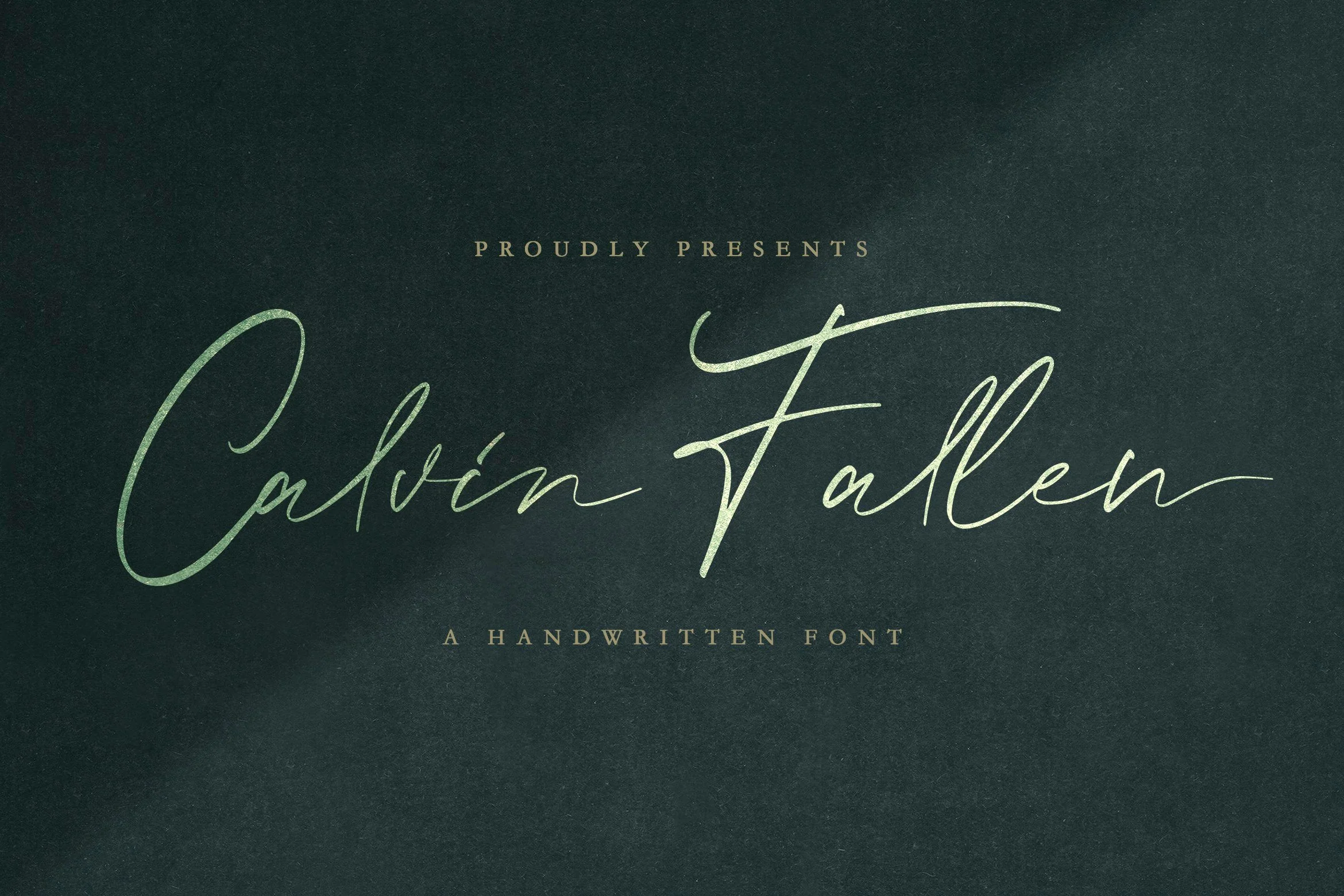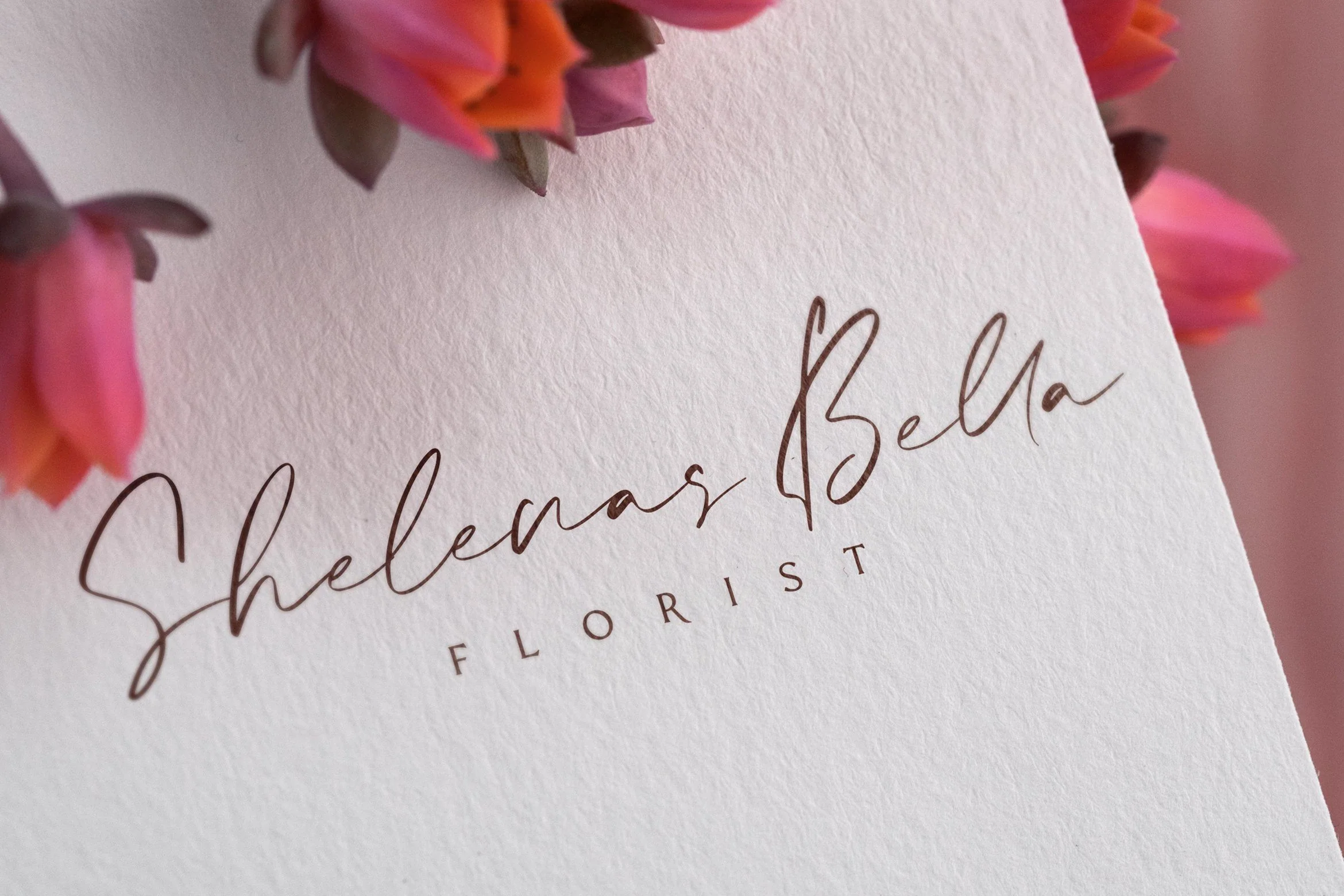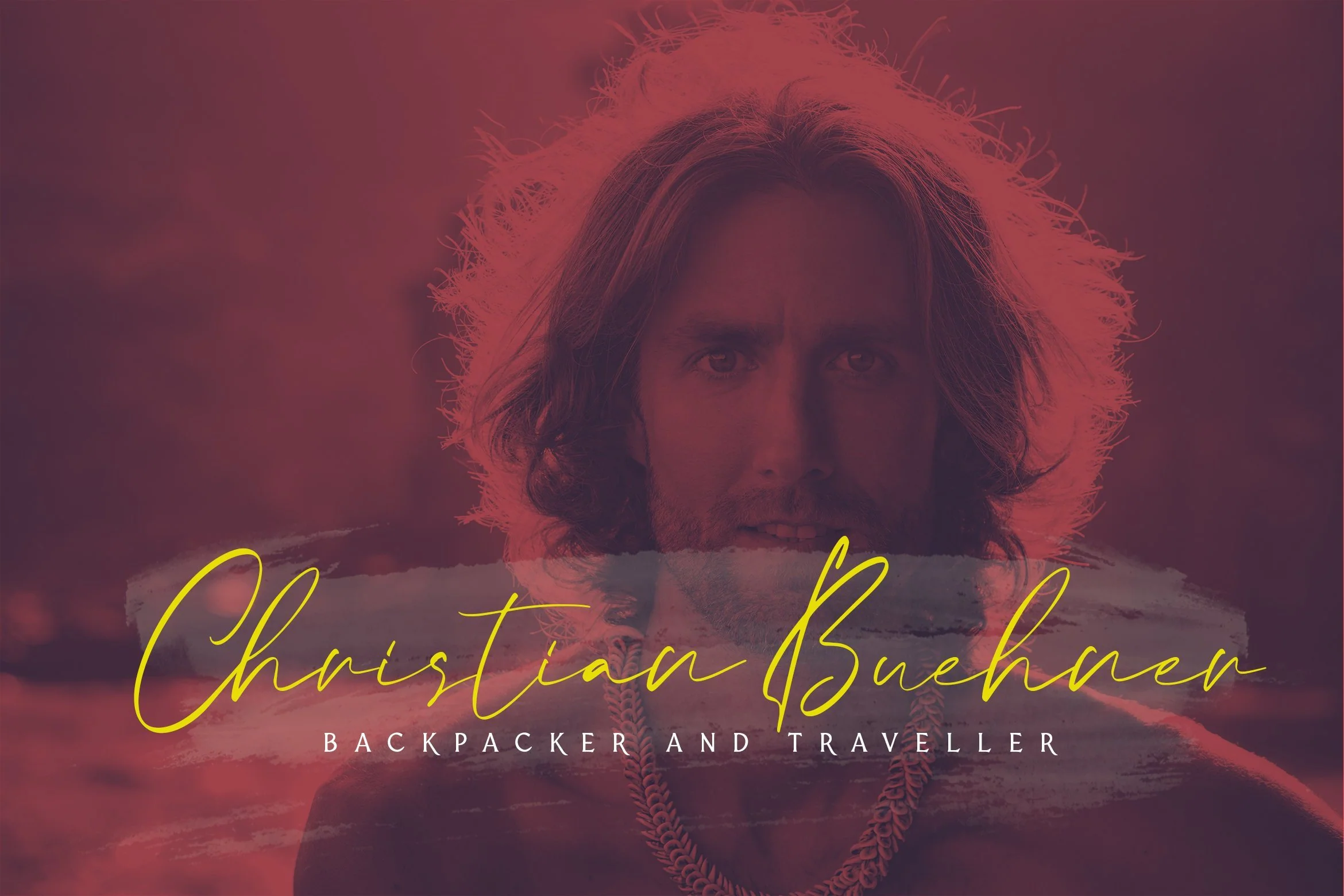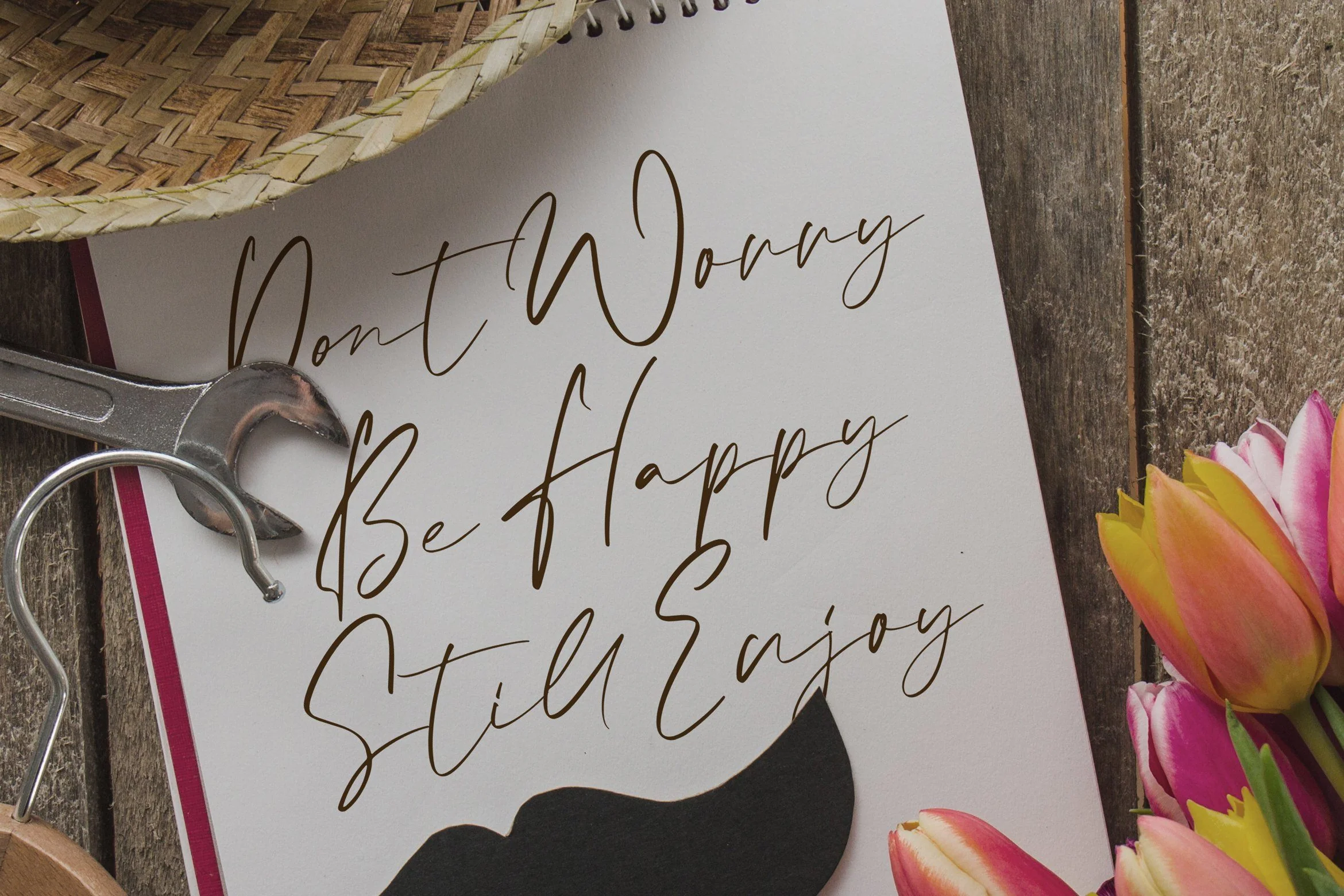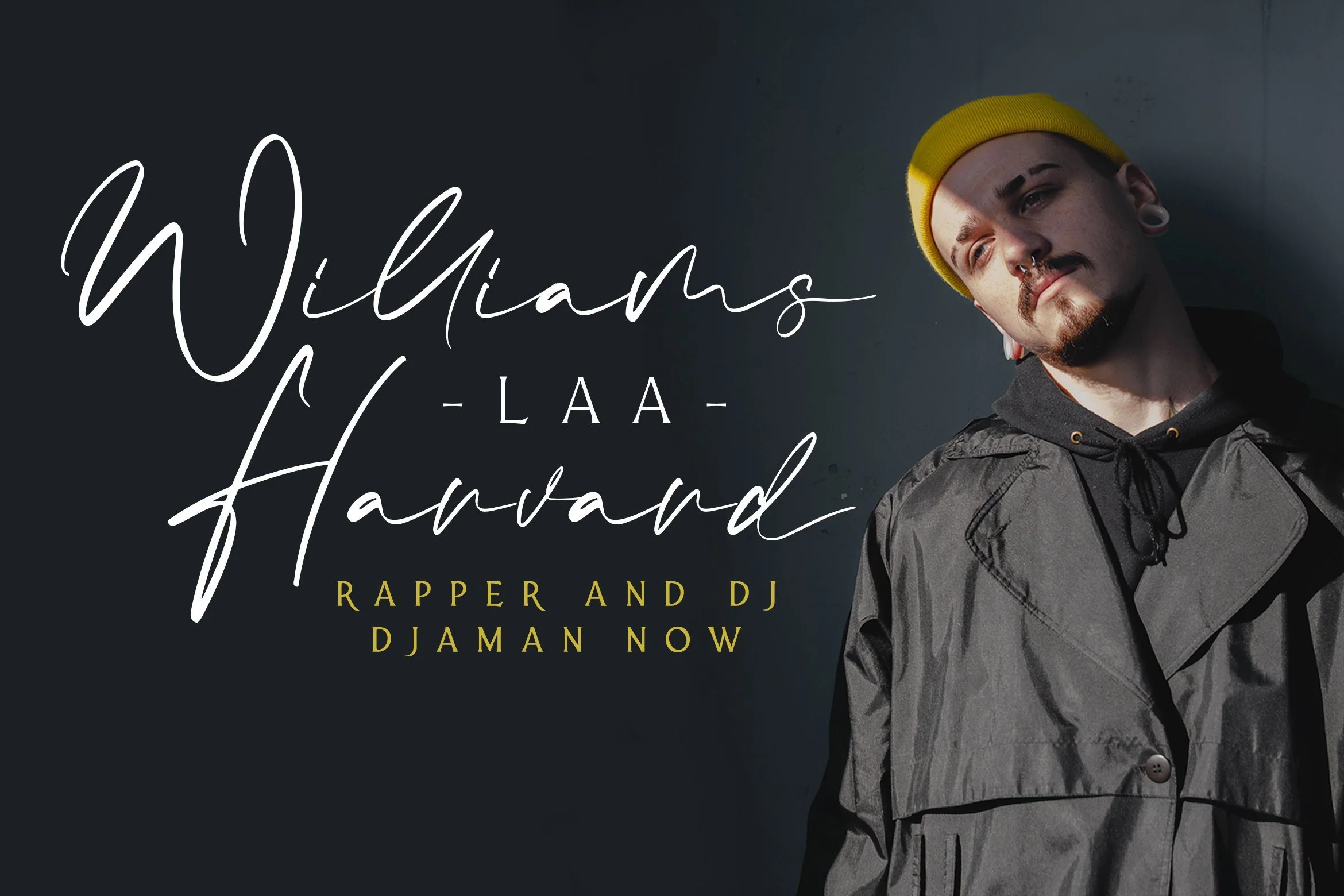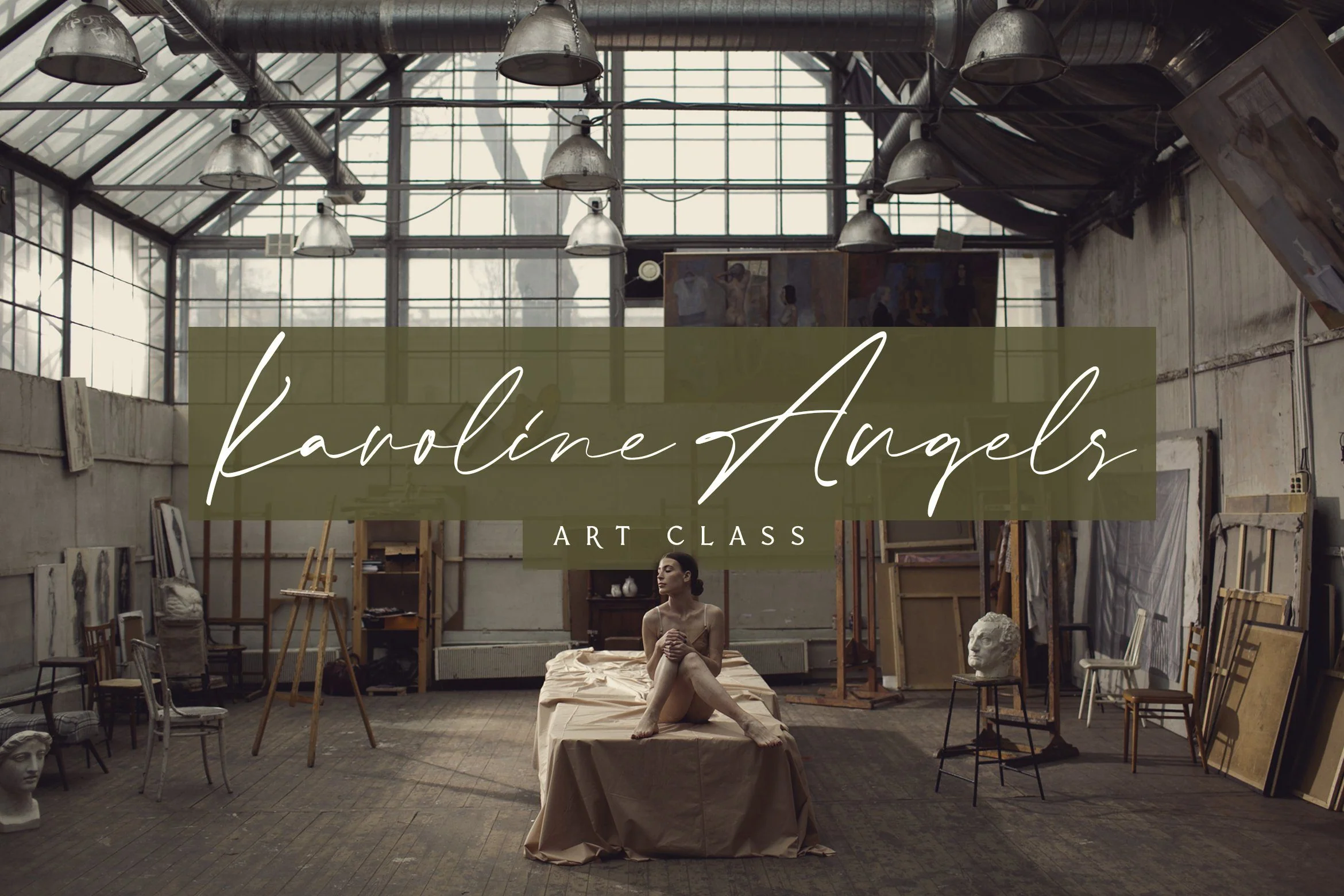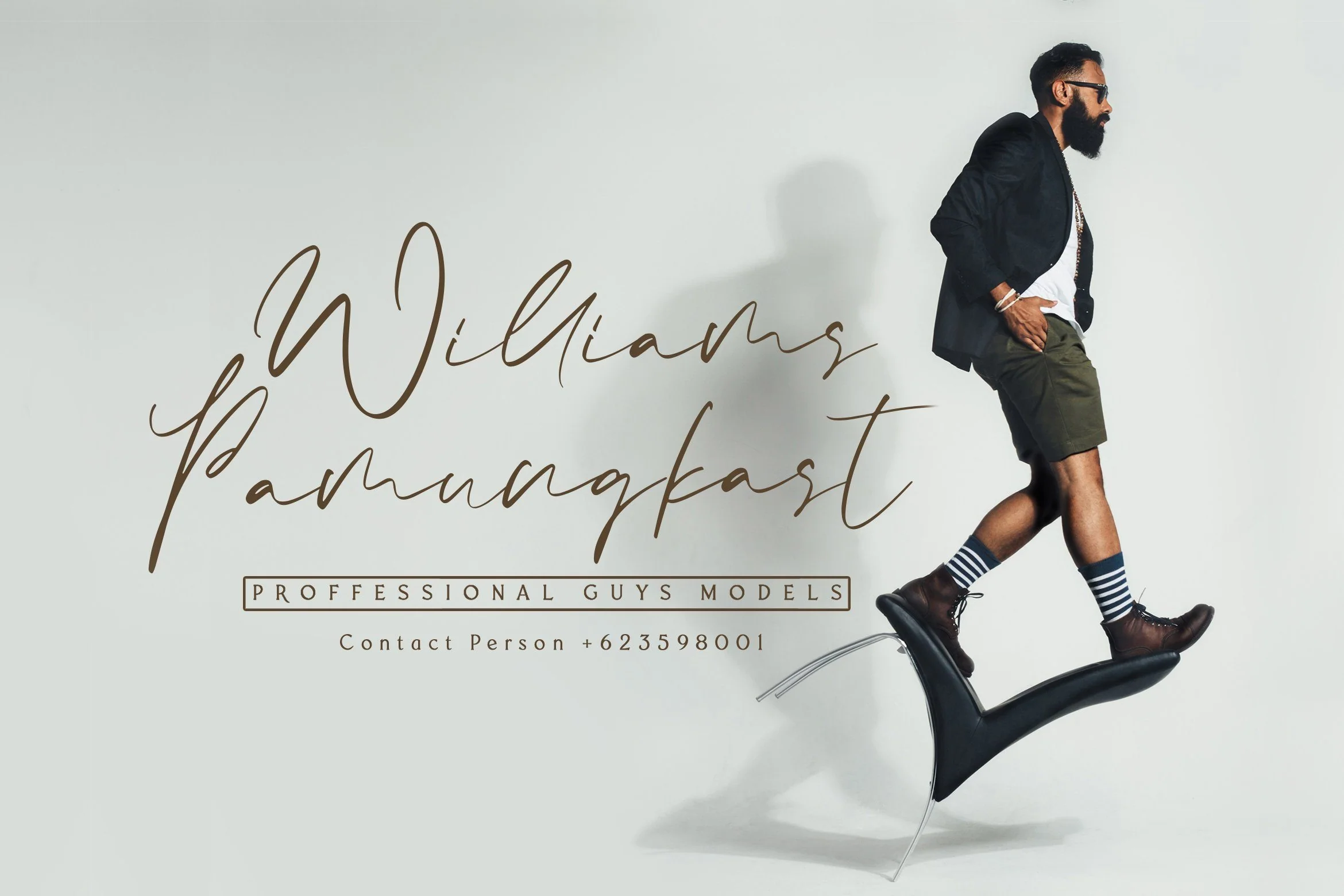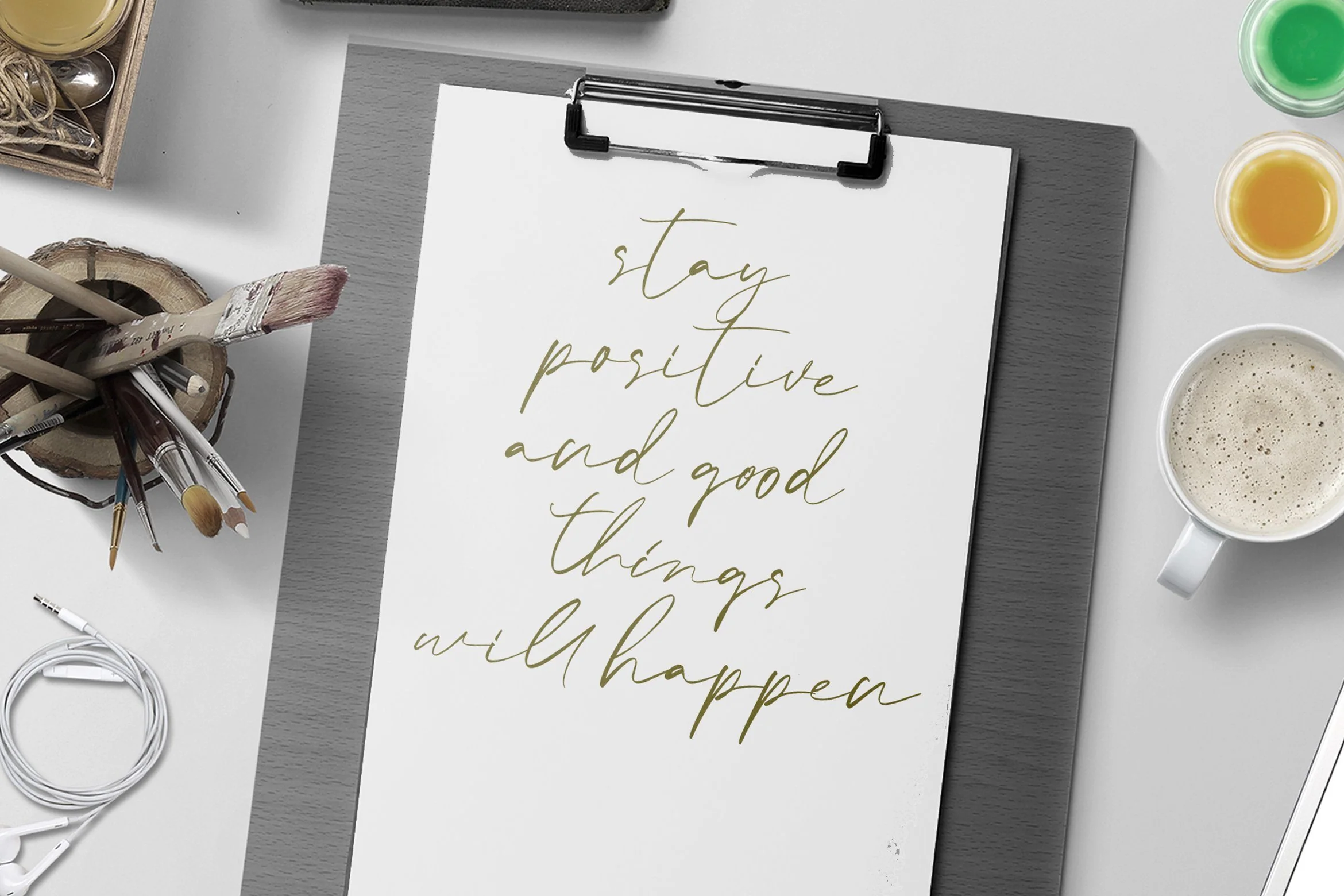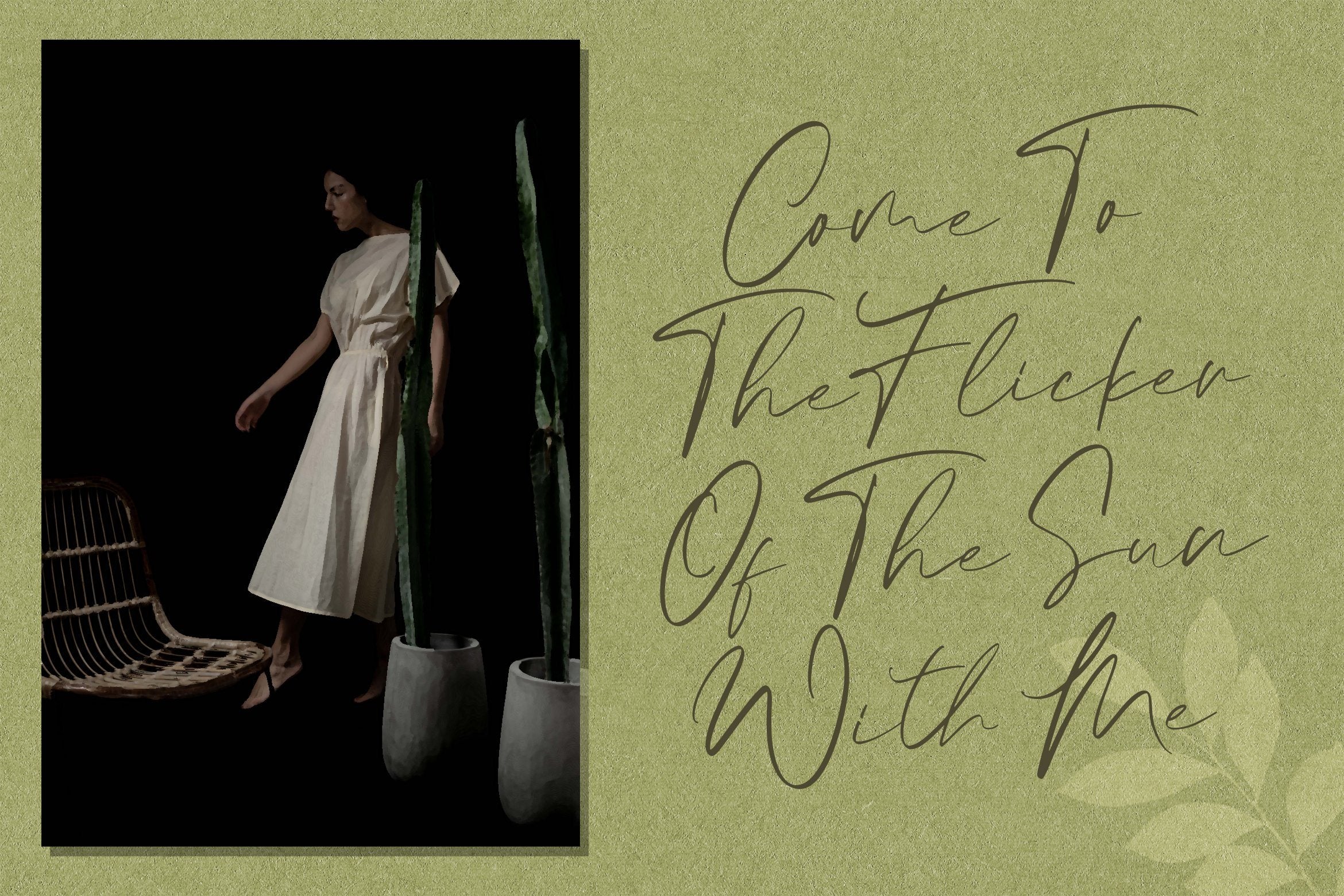
Calvin Fallen - Handwritten Signature Font
Introducing Calvin Fallen - Handwritten Signature Font
Calvin Fallen is a Script Font with Handwritten Signature Style. The Calvin Fallen font was created with authentic handwritting brush pen. This font is perfect for fashion brand, wedding invitation, business card, logo brand, signature, and then calligraphy.
This Font Template contains Classy, Elegant, Creative, Cool and has a Unique Concept.
Introducing Calvin Fallen - Handwritten Signature Font
Calvin Fallen is a Script Font with Handwritten Signature Style. The Calvin Fallen font was created with authentic handwritting brush pen. This font is perfect for fashion brand, wedding invitation, business card, logo brand, signature, and then calligraphy.
This Font Template contains Classy, Elegant, Creative, Cool and has a Unique Concept.